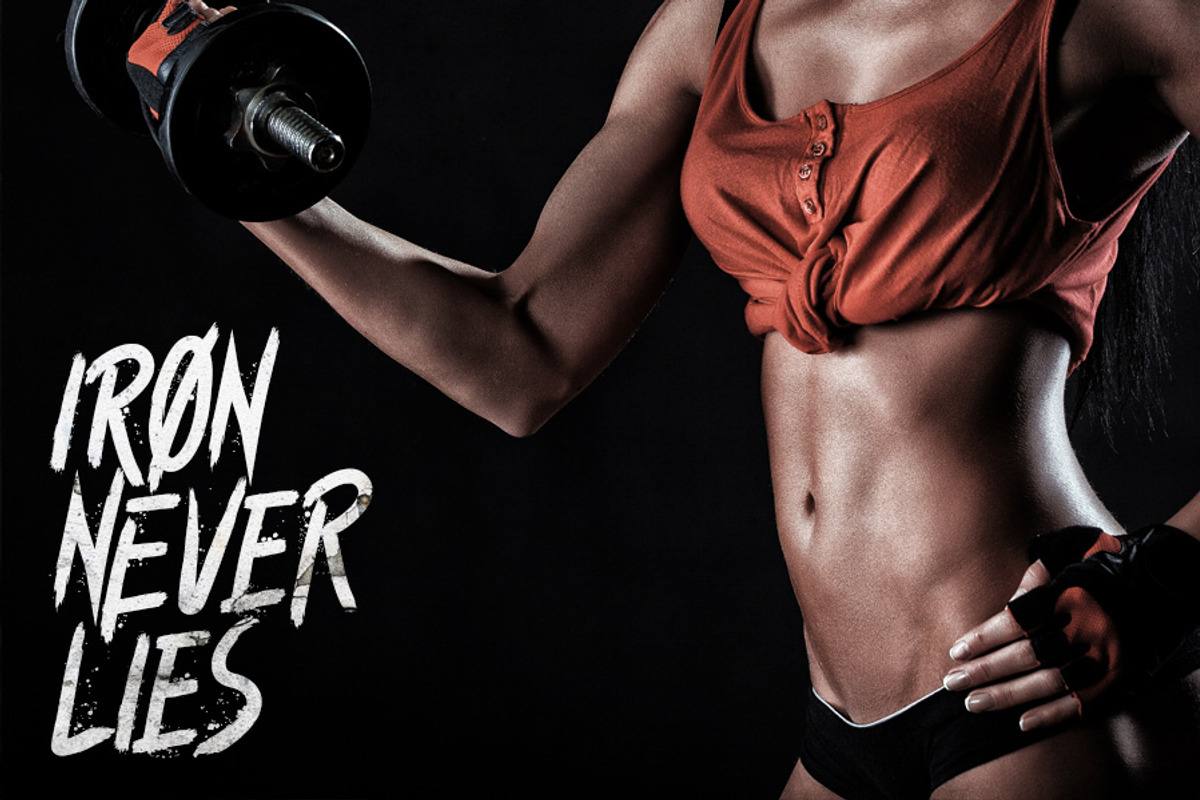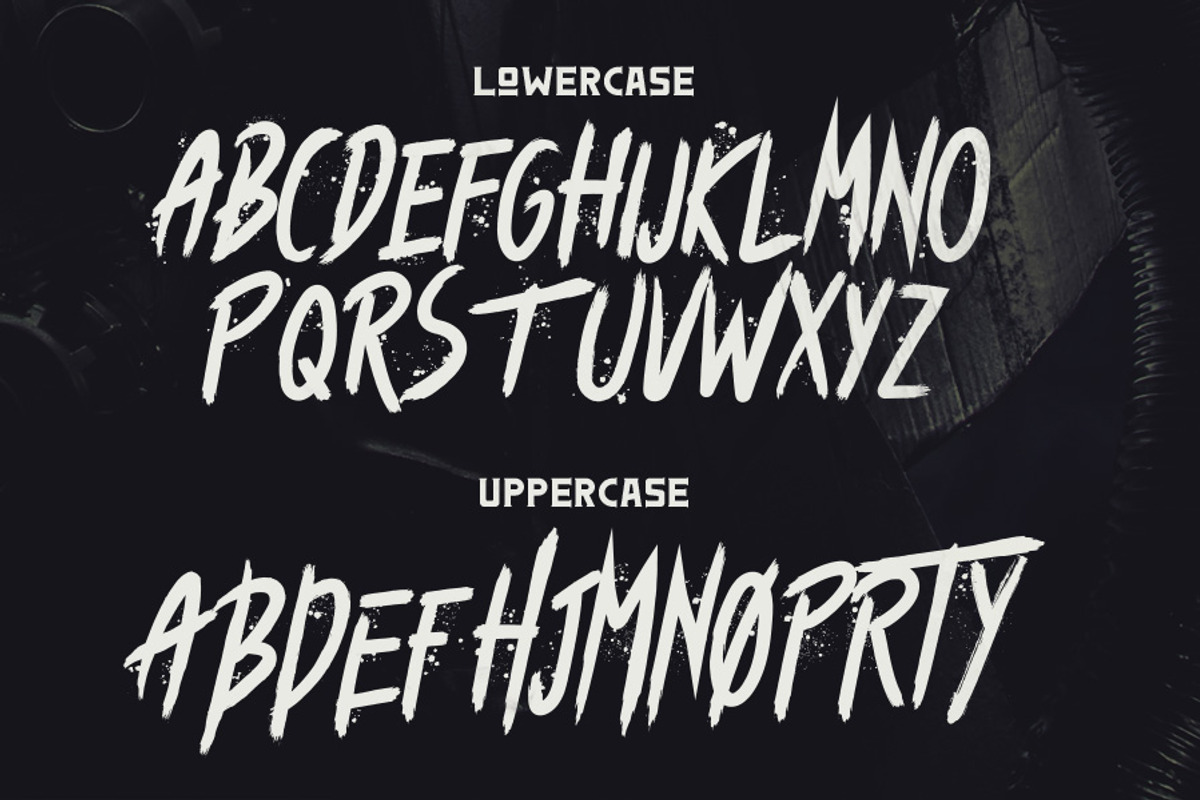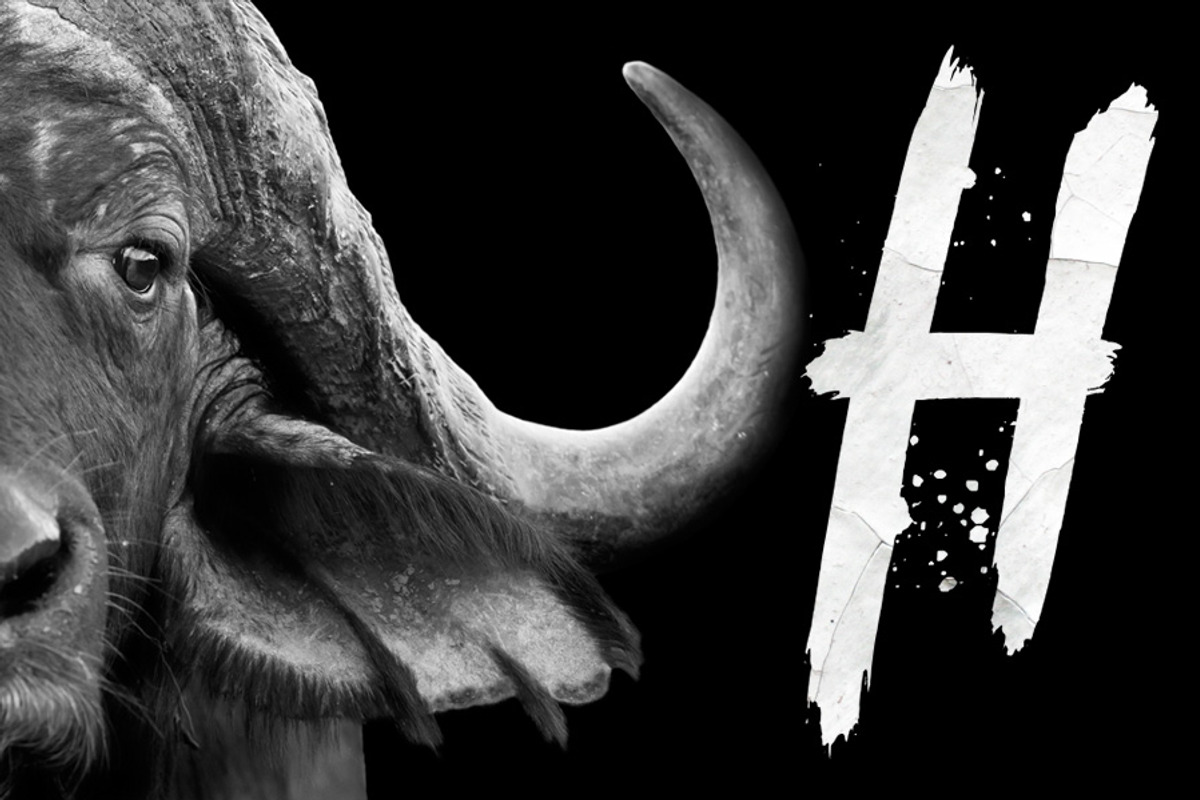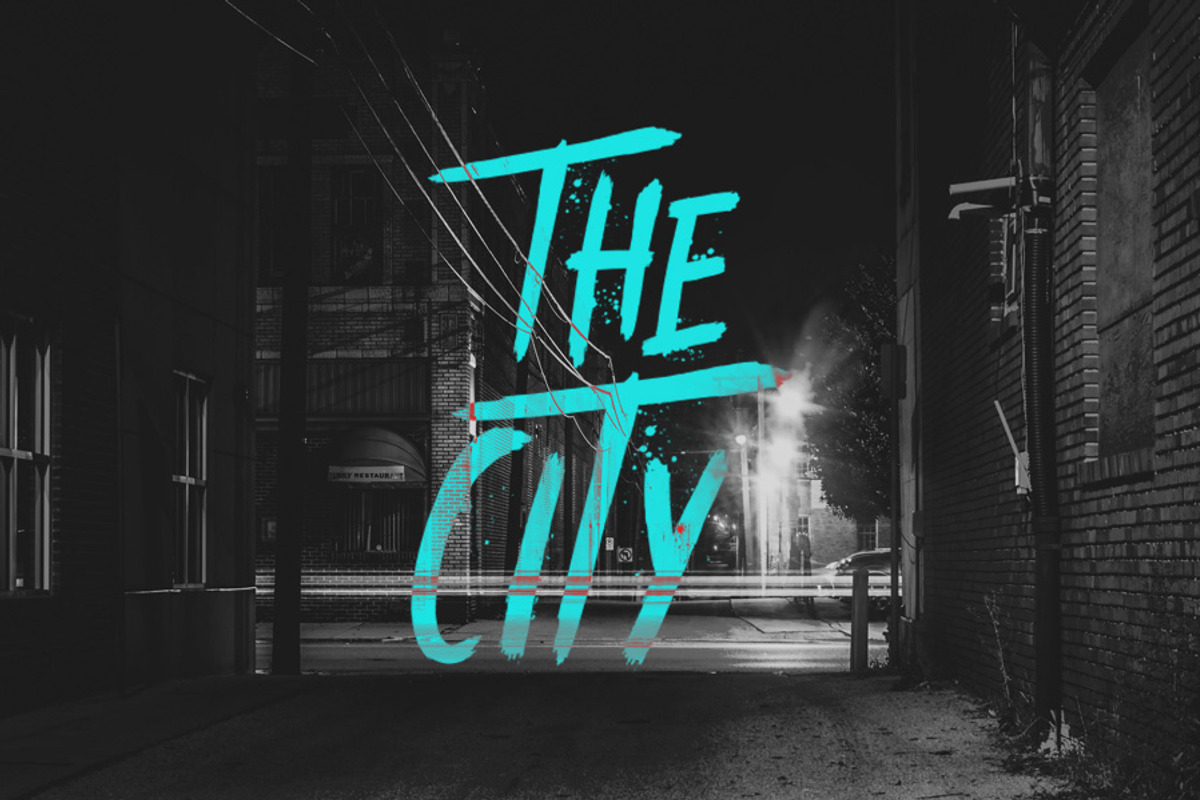
Atone - Brush Font
Atone - Brush Font by Tugcu Design Co. is a font selected for branding, posters, packaging, typography.
- Some letters have alternate versions which you can toggle with Caps Lock, as seen on the second screenshot.
Why Atone - Brush Font is worth a look
Atone - Brush Font by Tugcu Design Co. fits naturally into Branding, posters, packaging, typography.